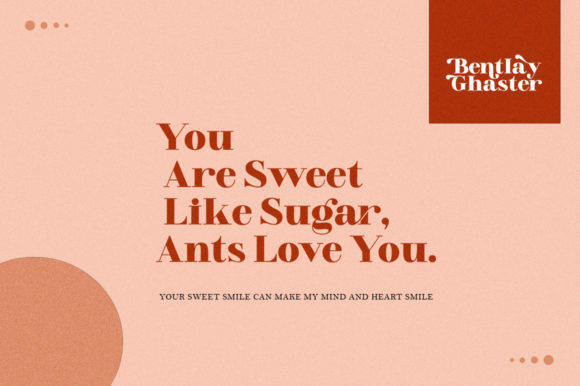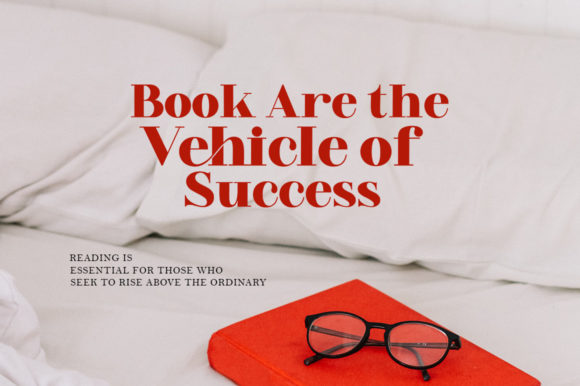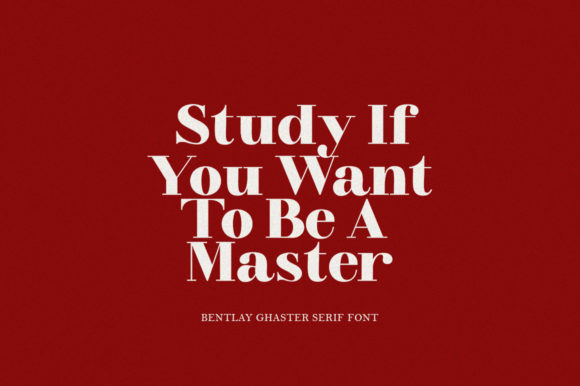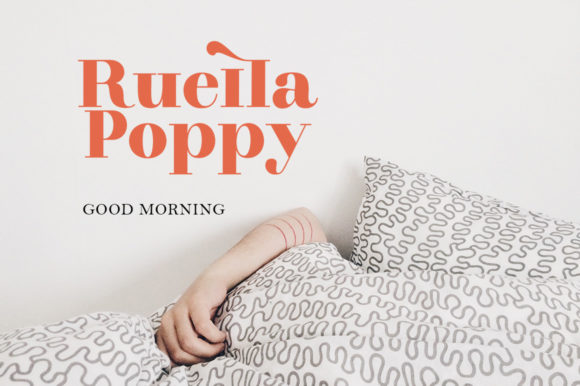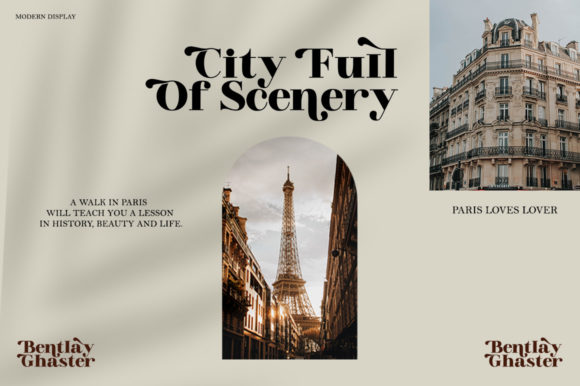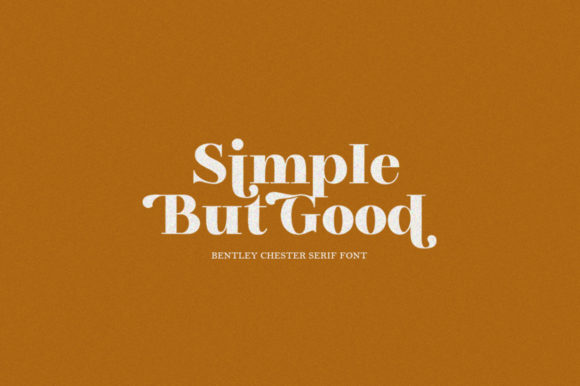
Imagine you’re in the middle of brainstorming a new campaign for your favorite gaming brand. You’re scrolling through font options, trying to find that perfect balance between style and readability. Suddenly, you stumble upon a font that screams ‘attention-grabber’ – a font that’s bold, assertive, and instantly grabs the viewer’s attention. This is where the Bentlay Ghaster Font comes in, ready to revolutionize your creative projects.
The Bentlay Ghaster Font is a versatile serif font designed to make a statement. From logotype to headline font, it’s perfect for corporate identities, brand identities, and even apparel industry projects. With its bold and assertive nature, this font is a valuable asset for designers looking to add a touch of sophistication to their designs.
Bentlay Ghaster Font Key Features
- Unique Characteristics: The Bentlay Ghaster Font features a unique blend of modern and vintage elements, with intricate details and flourishes that set it apart from other fonts.
Bentlay Ghaster Font Review
I’ve had the chance to work with the Bentlay Ghaster font, and I’m excited to share my honest review with you.
- The font has a unique, modern aesthetic that’s perfect for creative projects.
- The bold weight is particularly striking, and I love using it for headings and titles.
- The font’s versatility makes it suitable for a wide range of applications, from branding to publishing.
- The font’s readability can be an issue at smaller font sizes.
- The regular weight can feel a bit too thin, making it hard to read in certain contexts.
- The font’s lack of italic and bold-italic styles can be limiting for projects that require these variations.
Overall, I think the Bentlay Ghaster font is a solid choice for designers looking for a modern, eye-catching typeface. While it has its limitations, the font’s unique aesthetic and versatility make it a great addition to any design project. With a bit of careful planning and font pairing, you can get the most out of this font and create stunning designs.
Tip: Use Bentlay Ghaster Font for headings and titles to add a touch of elegance to your design.
Tip: Use Bentlay Ghaster Font for typography-heavy designs, such as posters or brochures.
Tip: Use Bentlay Ghaster Font for presentations or documents that require a professional and elegant touch.
Bentlay Ghaster Font is ideal for:
Designing luxury branding materials, such as business cards and letterheads.
Creating high-end typography-heavy designs, such as posters and brochures.
Adding a touch of elegance to presentations and documents.